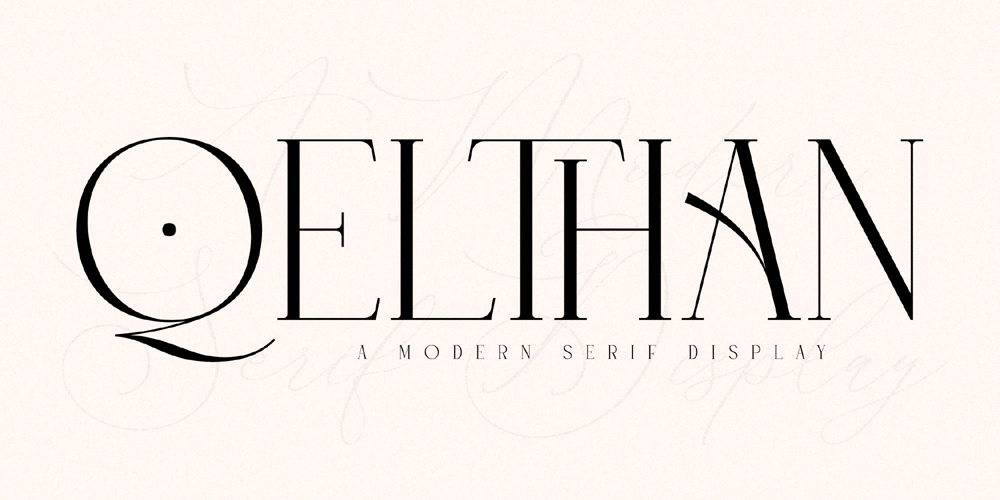
Qelthan
Qelthan font
Qelthan Font Family was designed by Heru Utama Putra and published by Letterena Studios. Qelthan contains 2 styles and family package options. Proudly present Qelthan Typeface.A serif modern and classic typeface that has its own unique style & modern look.This typeface is perfect for an elegant & luxury logo, book or movie title design, fashion brand, magazine, clothes, lettering, quotes, and so much more.